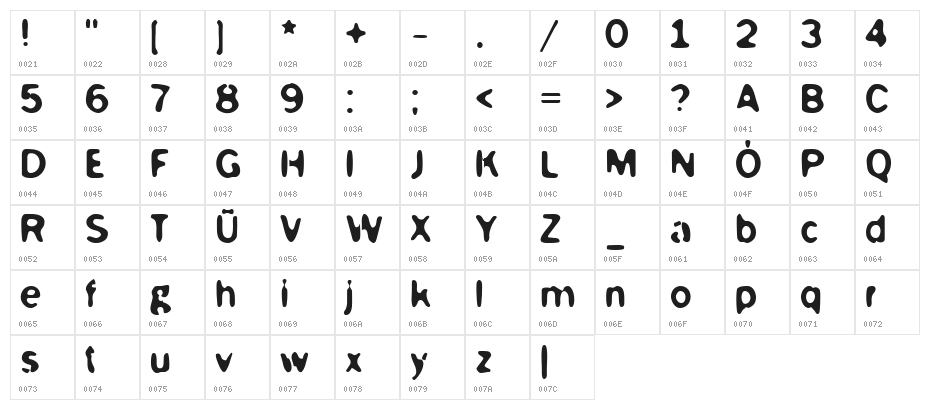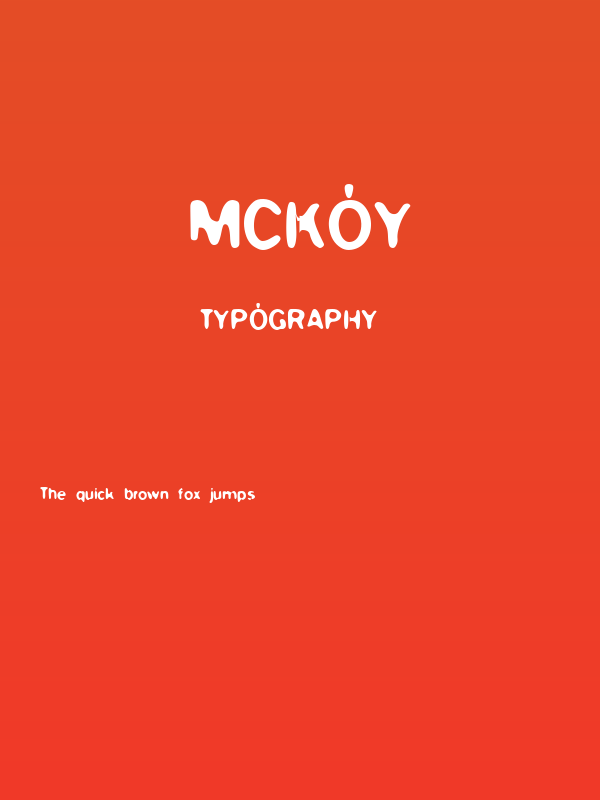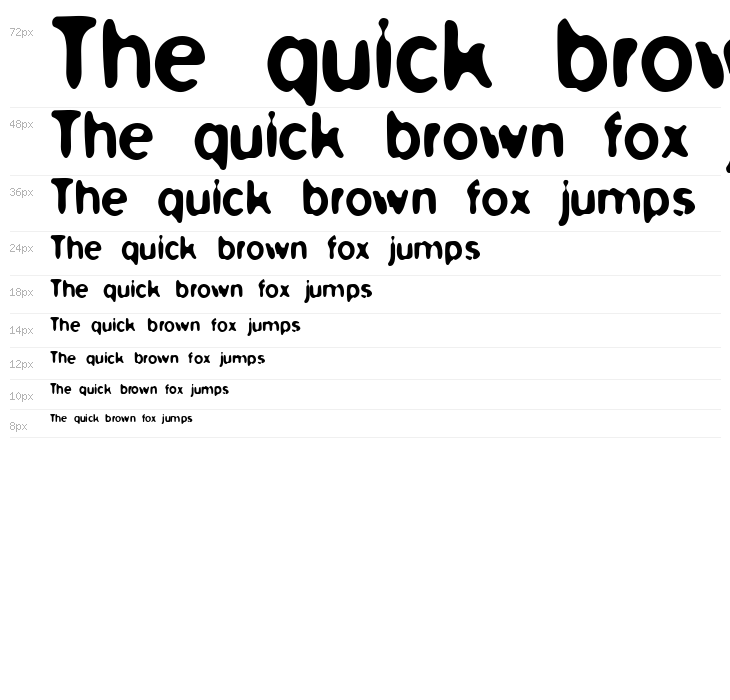
McKoy Font
McKoy Description
This font features a playful and bold design with rounded, organic shapes that give it a unique, almost hand-drawn appearance. The characters are thick and slightly irregular, adding a whimsical touch to the overall style. The uppercase and lowercase letters maintain a consistent weight, while the numbers and special characters follow the same playful aesthetic. The font includes diacritical marks, enhancing its versatility for various languages. Its boldness and distinctive style make it stand out, perfect for creative projects that require a fun and engaging typeface.
Overall StylePlayful, Whimsical
Proposed ProjectsIdeal for children's books, playful branding, posters, and creative invitations.